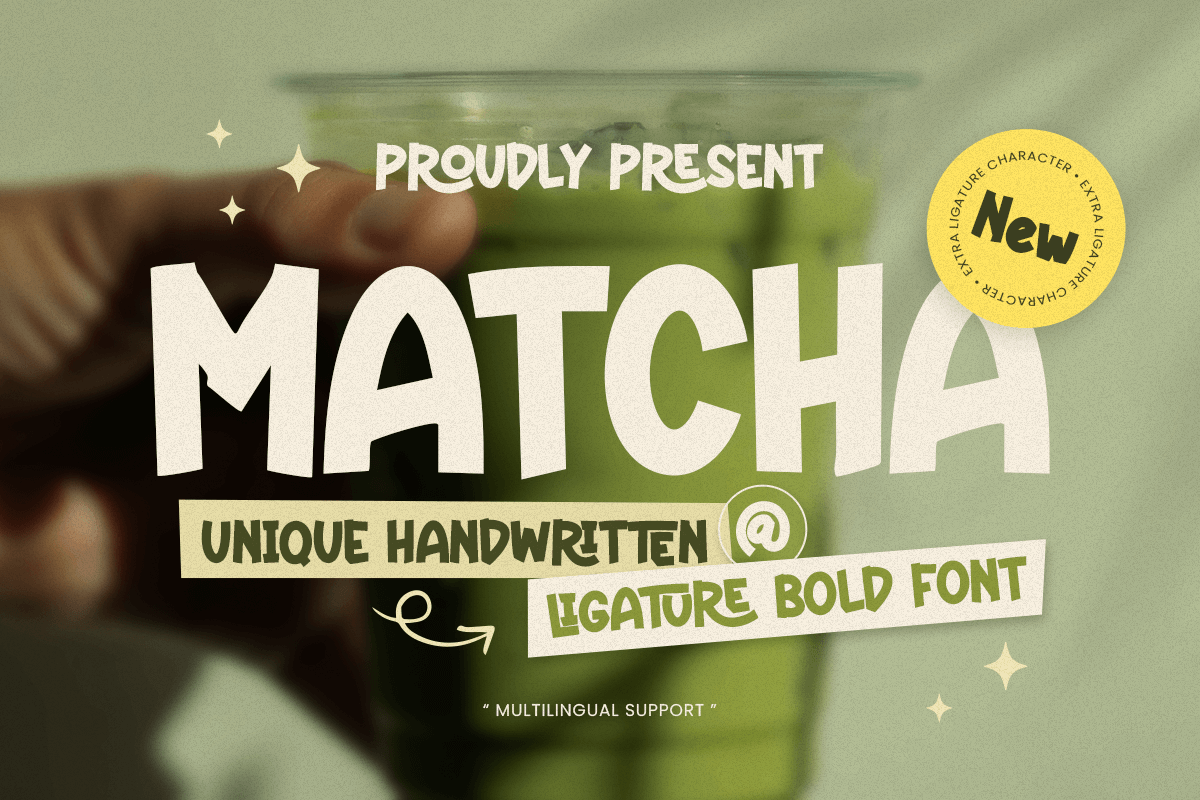
Matcha
-Unique Handwritten Ligature Bold FontMatcha - Unique Handwritten Ligature Bold Font
MATCHA is a unique handwritten ligature bold font crafted to bring expressive energy and friendly personality to your typography. With bold strokes, natural handwritten rhythm, and stylish ligature connections, this typeface creates a lively look that feels modern, fun, and instantly recognizable.
Designed for standout display use, MATCHA works beautifully across logos, wordmarks, packaging, labels, café menus, posters, social media graphics, website headers, and promotional designs. The ligatures add a smooth connected flow, giving your text a custom handmade feel while keeping it bold and readable across both digital and print layouts.
Whether you’re building a playful brand identity, designing bold product visuals, creating punchy headlines, or adding personality to modern marketing content, MATCHA delivers a confident handwritten style that feels warm, bold, and full of character.
Inspiration Behind MATCHA
MATCHA is inspired by bold marker handwriting and modern casual branding—where thick strokes and playful connections create a friendly, memorable voice. The design focuses on energetic rhythm and smooth ligature flow to support expressive typography for contemporary branding, packaging, and social-first design.
MATCHA Font Features:
Unique bold handwritten letterforms with lively character
Smooth ligatures for a connected, custom handmade feel
Perfect for logos, packaging, menus, and headline typography
High readability with bold strokes and clear forms
Logos, wordmarks, and playful brand identity systems
Packaging, labels, menus, and product branding
Posters, headlines, promotions, and bold marketing layouts
Social media graphics, digital banners, and content templates
Quotes, signage, and expressive modern lettering projects
Make your typography feel bold and handcrafted with MATCHA—a unique handwritten ligature font built for expressive branding. ✍️✨